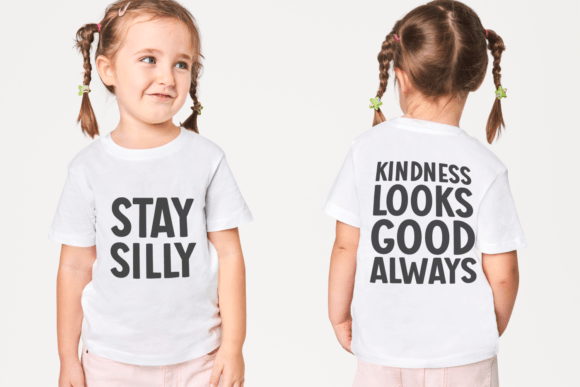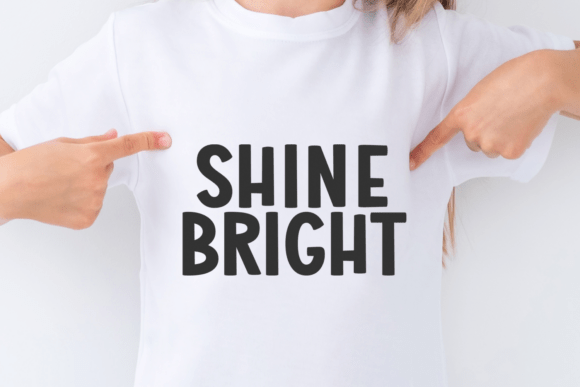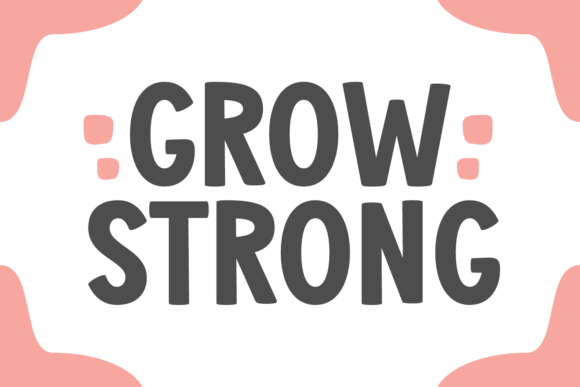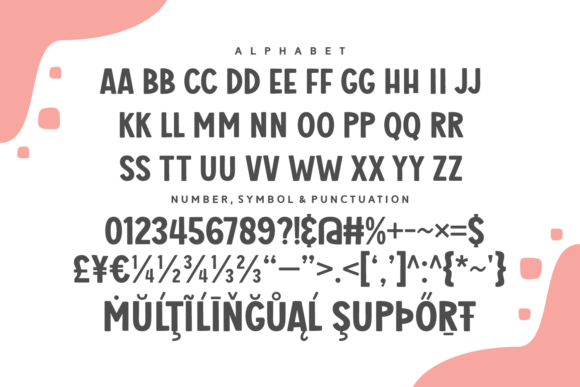
Welcome to the World of Whimsy: Discovering the Magic of Hello Minor Font
Do you ever find yourself lost in a sea of creativity, searching for the perfect font to bring your latest project to life? For many designers, this is a common dilemma. But what if I told you that there’s a font that embodies the essence of romance, fashion, and playfulness all in one? Welcome to the enchanting world of Hello Minor Font, a symphony of style that effortlessly weaves together display and children’s fonts to create a truly unique visual experience.
As a designer, you know the importance of finding the perfect font to elevate your work. Hello Minor Font is a valuable addition to any designer’s toolkit, capable of adding a touch of elegance and whimsy to everything from wedding cards to t-shirt designs. Its versatility makes it a must-have for any creative project, and its popularity as a Cricut font is just the beginning.
Hello Minor Font Key Features
- Font Family: Hello Minor is a sans-serif font family.
- Character Count: The font family includes a wide range of characters, including Latin, Cyrillic, and Greek alphabets, as well as various punctuation marks and symbols.
- Unique Characteristics: The font features a clean and modern design, with a subtle rounded edge to the letters, giving it a friendly and approachable feel.
Hello Minor Font Review
As a designer, I’ve had the chance to work with various fonts, and I’d like to share my honest review of the Hello Minor Font. ✨ One thing that immediately caught my attention was its unique and elegant design. The font’s subtle nuances and curves make it perfect for creating visually appealing headings and titles.
- ✨ Elegant and sophisticated design
- ✨ Perfect for headings and titles
However, I did encounter a few limitations while working with the font. ⚠️ Firstly, the font’s legibility can be affected by the size and line height. If not used correctly, the font can appear cluttered or difficult to read. Additionally, the font’s limited character set may not be suitable for longer blocks of text.
- ⚠️ Limited legibility at certain sizes and line heights
- ⚠️ Limited character set may not be suitable for longer text
Overall, I’d say that the Hello Minor Font is a great choice for designers looking to add a touch of elegance to their projects. While it may have some limitations, the font’s unique design and high-quality files make it a worthwhile investment.
Hello Minor Font is ideal for:
- Typography-based artwork
Alternatives to Hello Minor Font
Great Vibes Font is a modern, elegant script font that is perfect for creating a sophisticated and stylish look. It has a more refined and polished feel compared to Hello Minor Font, making it ideal for high-end branding, advertising, and editorial content.
Comparison: Great Vibes Font has a more refined feel and is better suited for formal designs, whereas Hello Minor Font has a more casual and playful vibe.
Pacifico Font is a beautiful, cursive script font that evokes a sense of relaxation and calmness. It is perfect for creating a soothing and serene atmosphere, making it ideal for wellness, travel, and lifestyle brands.
Comparison: Pacifico Font has a more laid-back and organic feel compared to Hello Minor Font, which has a more modern and sleek vibe.